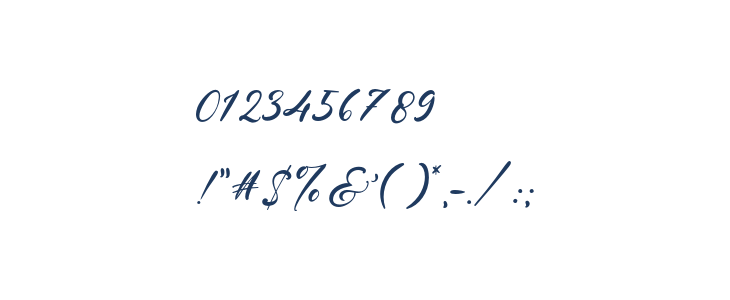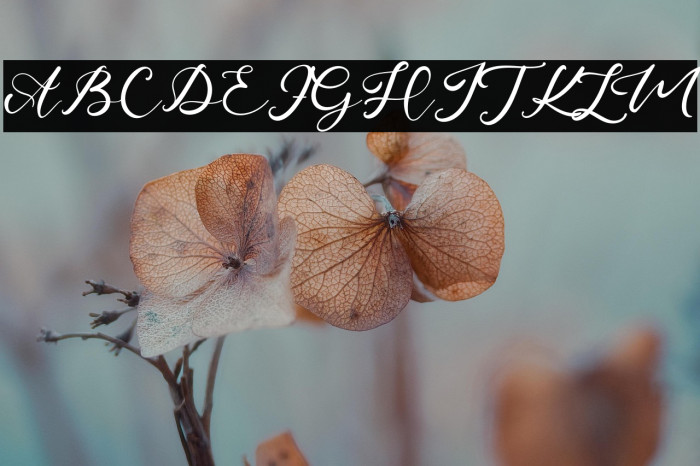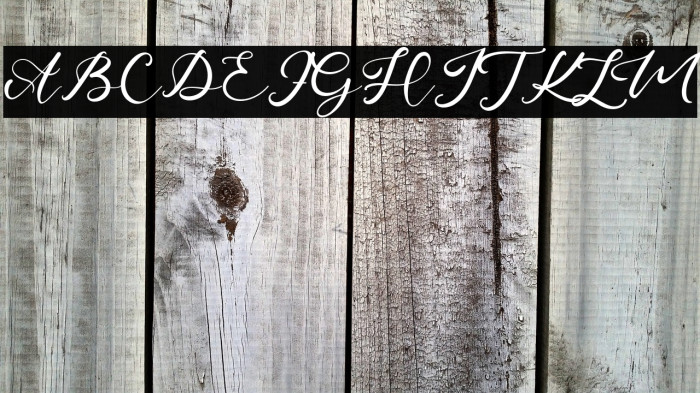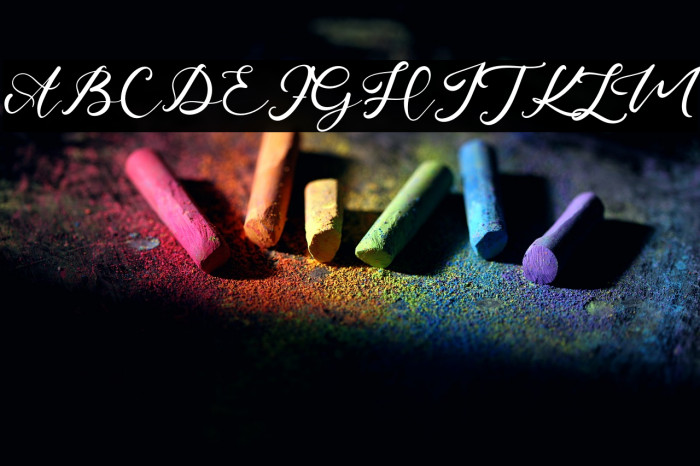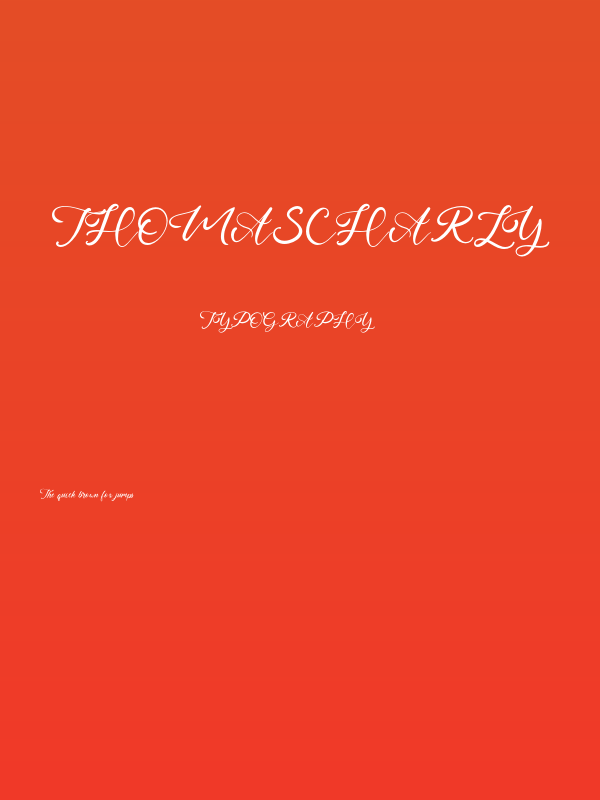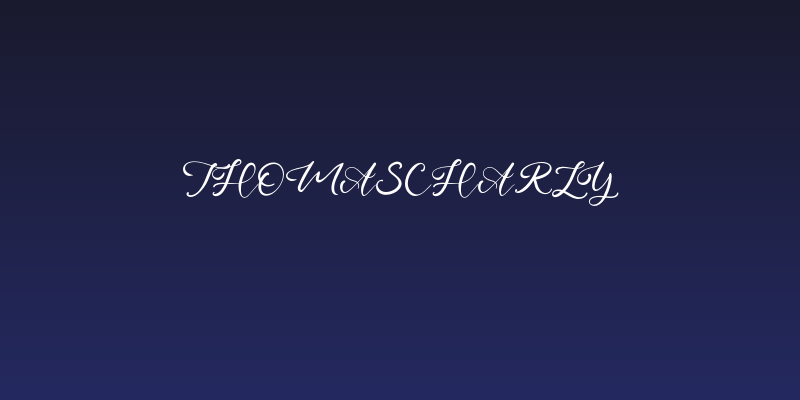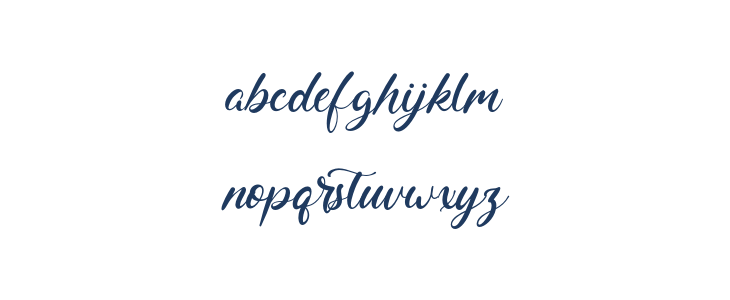
ThomasCharly Font
ThomasCharly Description
This elegant script font features flowing, interconnected letters that exude a sense of sophistication and grace. The uppercase letters are ornate with delicate flourishes, while the lowercase letters maintain a smooth, cursive style. The numerals are consistent with the overall script aesthetic, offering a harmonious blend of curves and loops. Special characters are thoughtfully designed to match the font's elegant style, making it suitable for a variety of decorative purposes. The font's overall appearance is both classic and timeless, ideal for projects that require a touch of elegance and refinement.